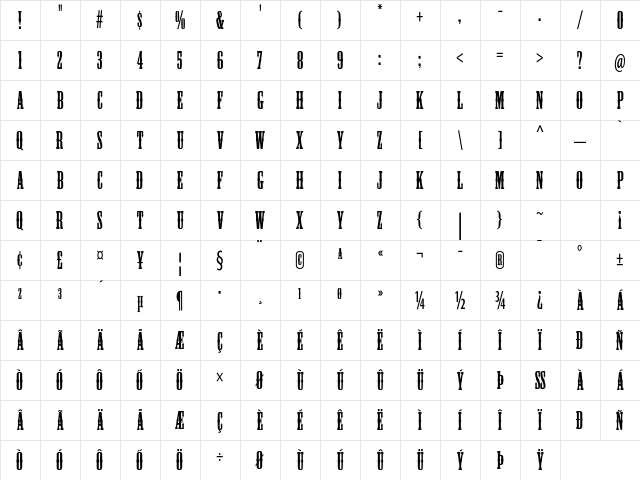
Complete Mesquite Std Medium glyph index. Displaying only characters natively supported by Mesquite Std Medium font.
Mesquite Std is a composed and adaptable typeface that performs quietly and consistently across a wide range of design contexts.